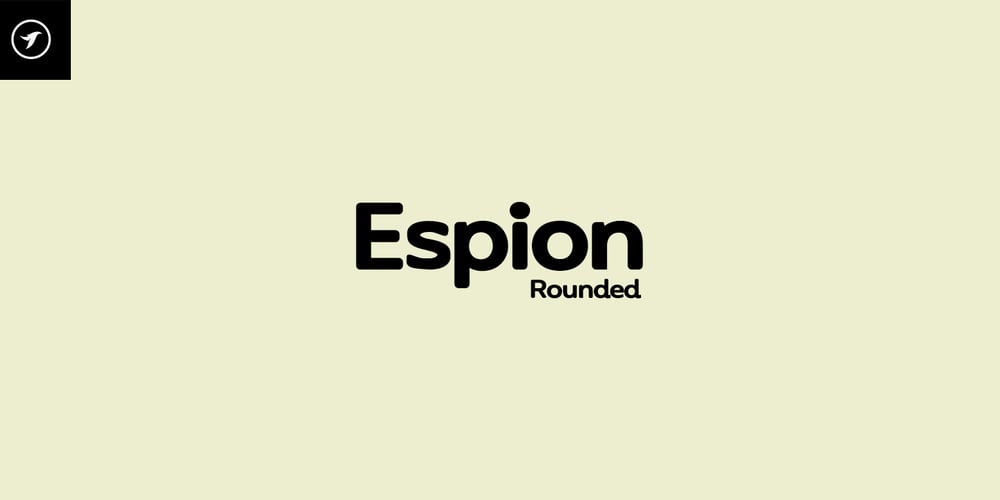
Espion Rounded Font Family was designed by Jean Johnson and published by Designova. Espion Rounded contains 4 styles and family package options. This is rounded version of Espion Grotesk – a unique typeface for headlines, big text, branding, logotypes & display usage. This unique typeface is best for creating outstanding logos, promotional content and marketing graphics that can really grab attention from your visitors. Please see the examples shown above to get an idea about the capability of this typeface.